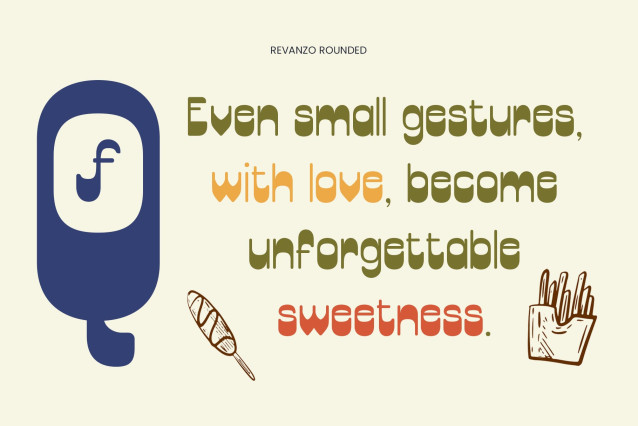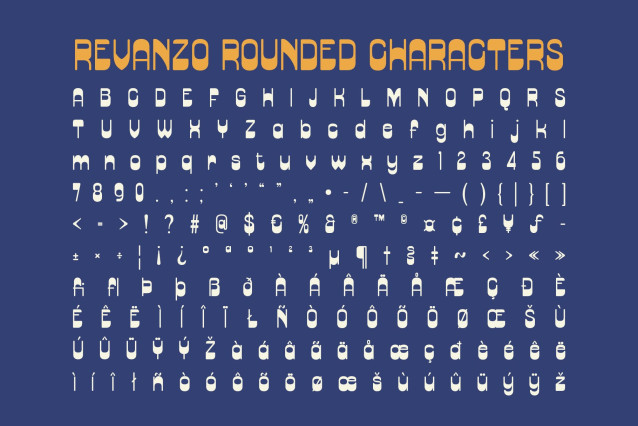
Revanzo Rounded Font
Revanzo Rounded Font is a sans-serif display font that blends a unique reverse contrast structure with smooth, rounded terminals. This combination creates a standout retro aesthetic that feels both bold and inviting—perfect for eye-catching, personality-rich design.